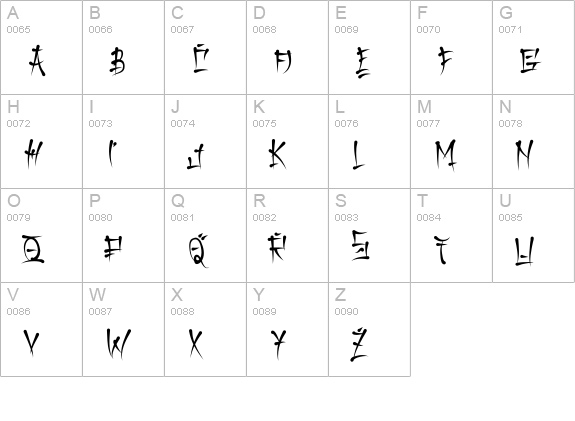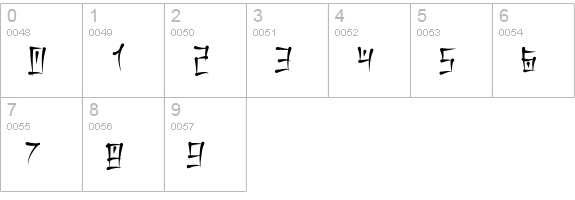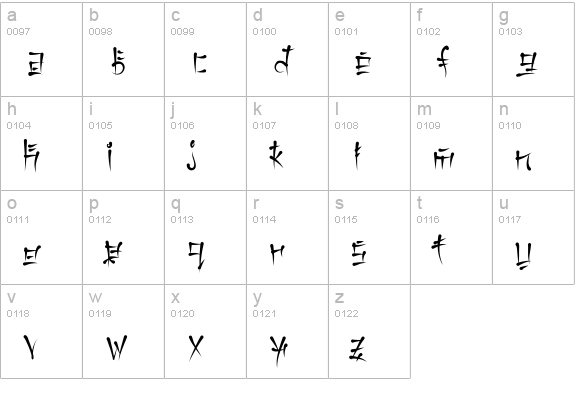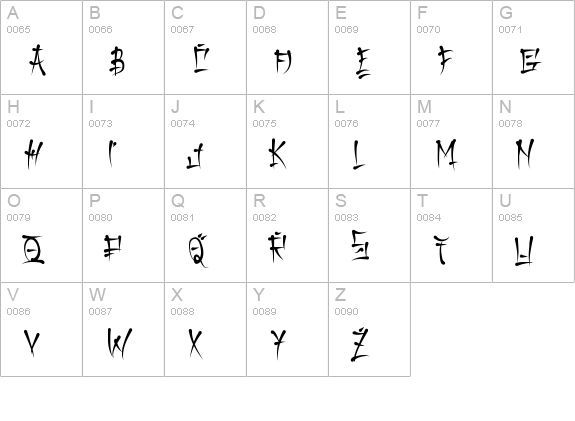
Keetano Katakana Roman Font Details
The Keetano Katakana Roman font is a modern and stylish typeface that adds a touch of elegance to any design project. With its sleek lines and unique characters, this font is perfect for creating eye-catching headlines, logos, and branding materials. What sets Keetano Katakana Roman font apart is its versatility - it can be used for both digital and print designs, making it a must-have for designers looking to make a statement. Whether you're working on a website, poster, or packaging design, this font will help you stand out from the crowd. Best of all, the Keetano Katakana Roman font is completely free to download at FontsMarket.com. So why wait? Add this stunning font to your collection today and elevate your design projects to the next level!